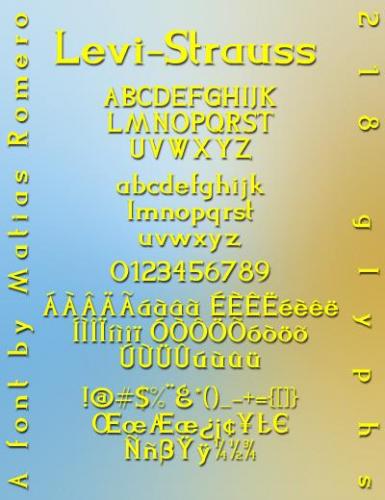
Levi-Strauss Font is not my first attempt at serif fonts, but a little less casual than the efforts before. A mix between the raw and the cooked, it was named after Claude Lévi-Strauss, eminent French anthropologist who broke the barriers between so-called civilized and savage ethnicities in the planet.